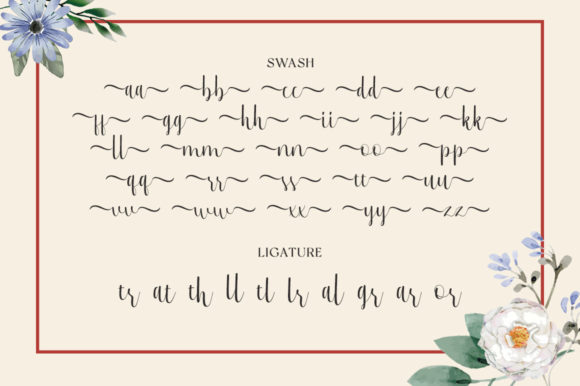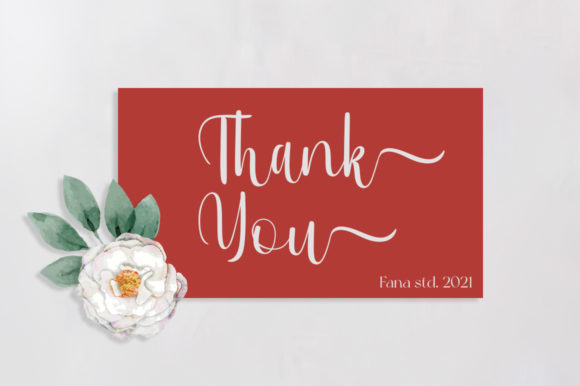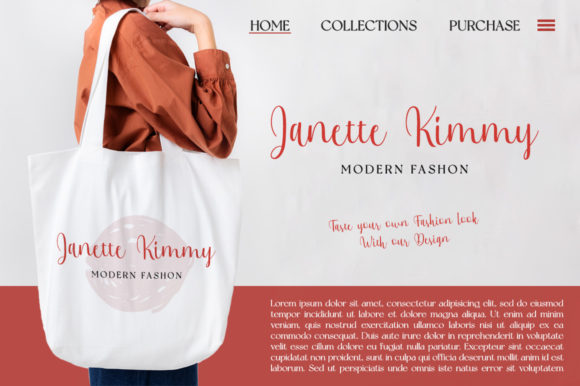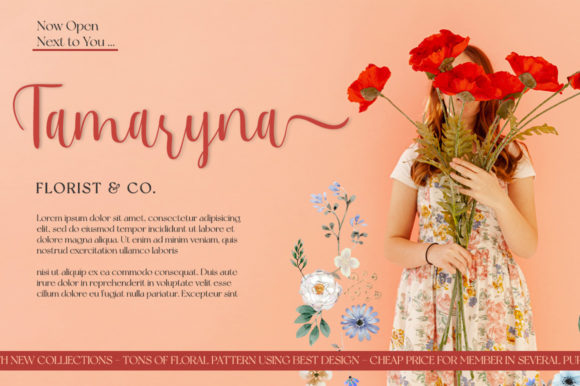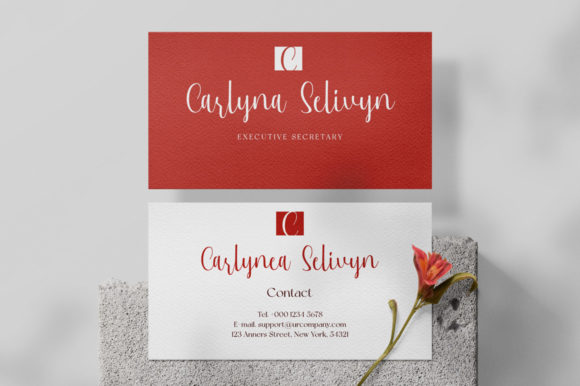
About Jessica Font
Jessica feels equally magical and delicate. It looks lovely on wedding invitations, thank you cards, quotes, greeting cards, logos, business cards and every other design which needs a customized touch.